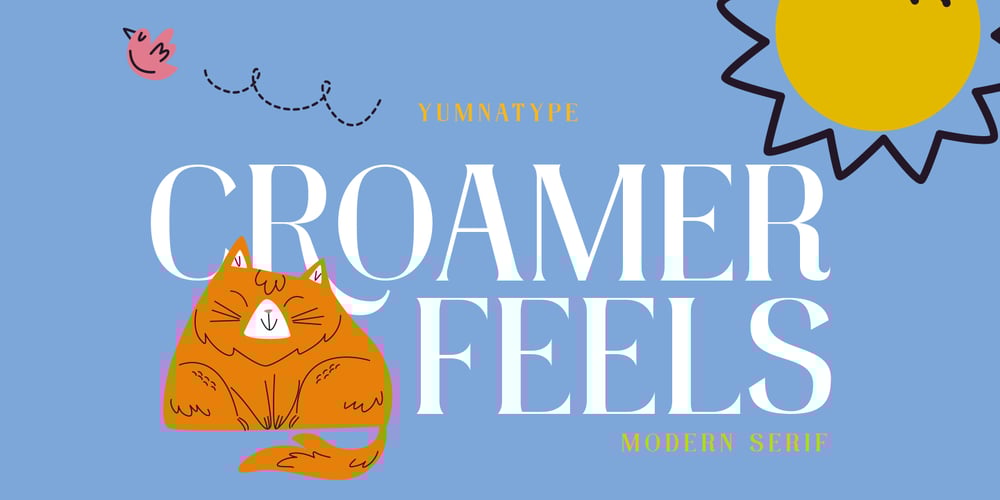
Croamer Feels
Croamer Feels font
Croamer Feels Font Family was designed by Donis Miftahudin and published by Yumna Type. Croamer Feels contains 1 styles and family package options. Croamer Feels is a sophisticated serif font that blends timeless elegance with a modern aesthetic. With its modern style, Croamer Feels’s clean lines and sharp serifs create a sleek and polished look. The balance between its classic serif elements and contemporary design sensibilities makes this font versatile and highly readable, whether used in body text or as display headlines.The proportions of Croamer Feels are carefully crafted to maintain harmony and visual appeal. Its moderate contrast between thick and thin strokes adds a touch of sophistication without compromising readability. The subtle curves and precise detailing in the letterforms enhance its elegance, making it suitable for upscale and professional projects. In addition, enjoy the features here.Features: Ligatures Multilingual Supports PUA Encoded Numerals and Punctuations Croamer Feels fits in headlines, logos, posters, flyers, branding materials, print media, editorial layouts, and many more designs. Find out more ways to use this font by taking a look at the font preview.Thanks for purchasing our fonts. Hopefully, you have a great time using our font. Feel free to contact us anytime for further information or when you have trouble with the font. Thanks a lot and happy designing.